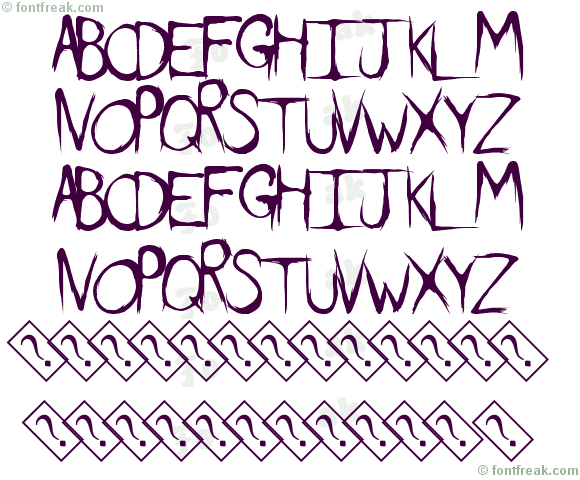
DirtyFeature
DirtyFeature, designed by XEROGRAPHER FONTS in 2012, is a distinctive display typeface that captures attention with its unique, edgy aesthetic. This font belongs to the decorative category, characterized by its irregular stroke weights and an intentionally rough, hand-drawn appearance. Each character features jagged edges and uneven spacing, which adds to its raw and organic feel. The design evokes a sense of playfulness while simultaneously embodying an artistic flair, making it suitable for various creative projects.
This font is an excellent choice for a range of applications. Its bold and unconventional style makes it perfect for concert posters and album covers, where it can help convey a sense of energy and rebellion. Additionally, DirtyFeature is well-suited for branding initiatives aimed at youth-oriented products, such as skate shops or streetwear brands, where a gritty, urban vibe is desired. It can also be effectively used in promotional materials for art galleries or creative workshops, emphasizing a hands-on, artistic approach. Furthermore, its unique appearance can enhance social media graphics, making posts stand out in crowded feeds.
What sets DirtyFeature apart is its ability to convey personality and character. Its unconventional style breaks away from traditional typography, allowing users to express creativity in a bold manner. This font not only enhances the visual appeal of any project but also resonates with audiences looking for something unique, making it a valuable addition to any designer's toolkit.